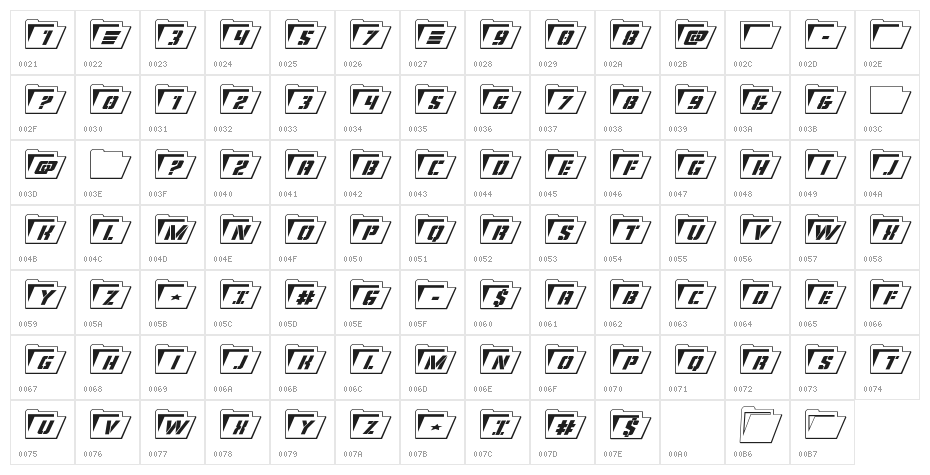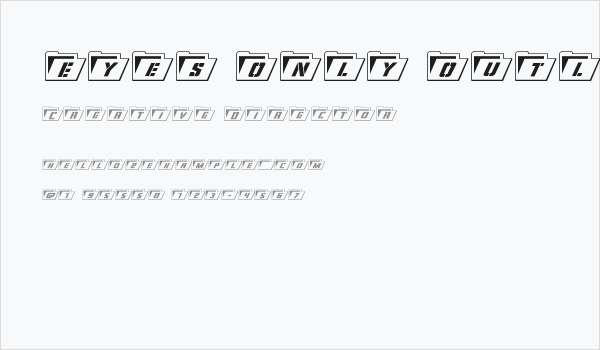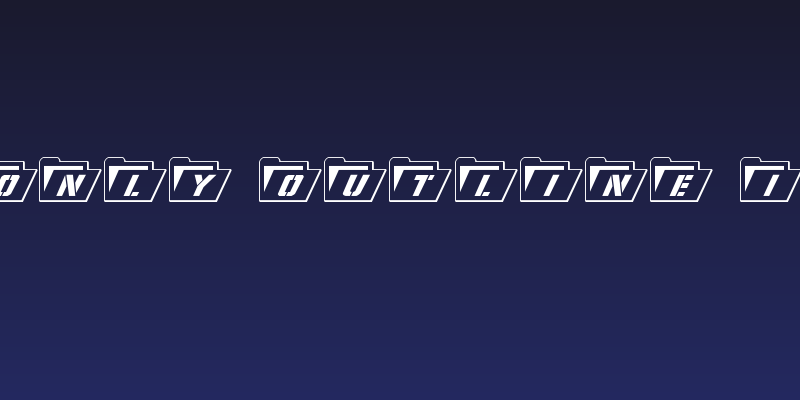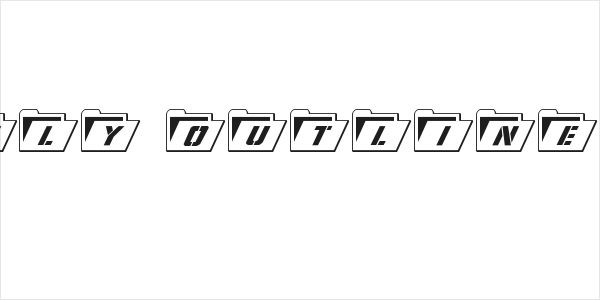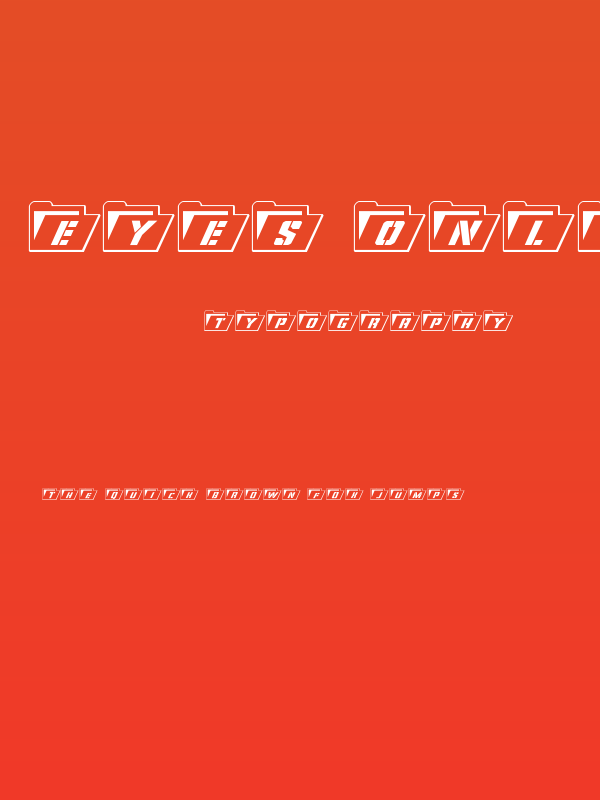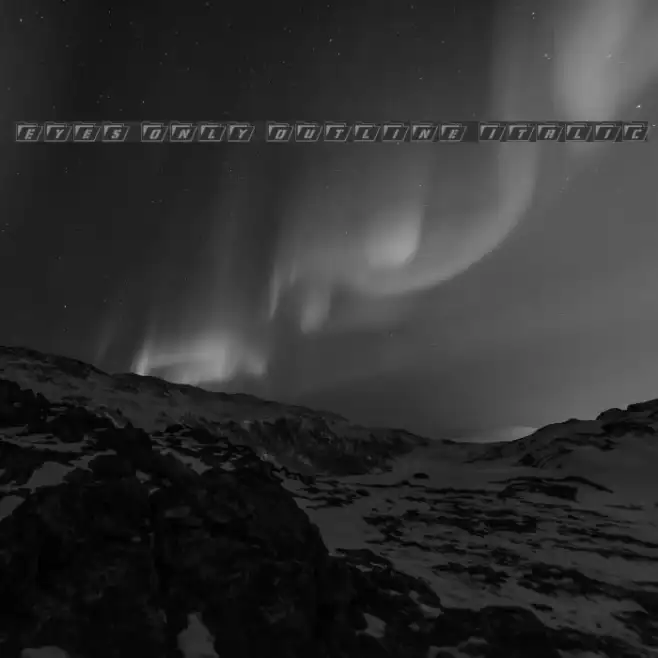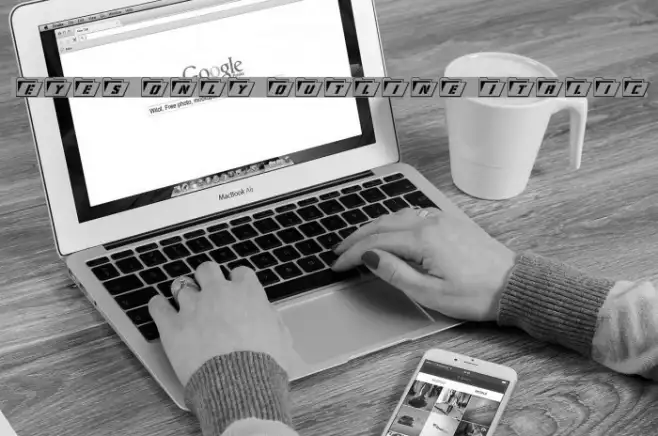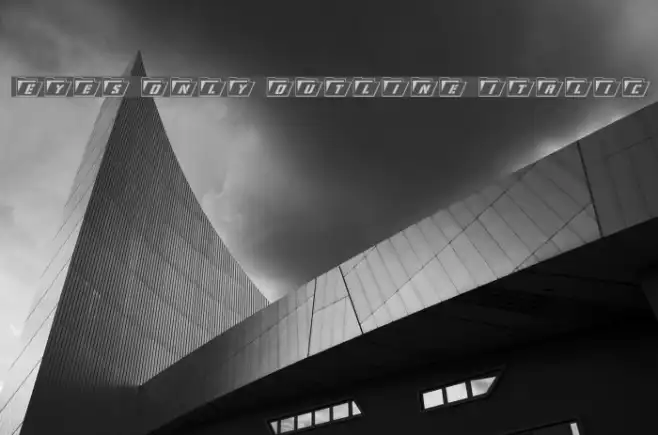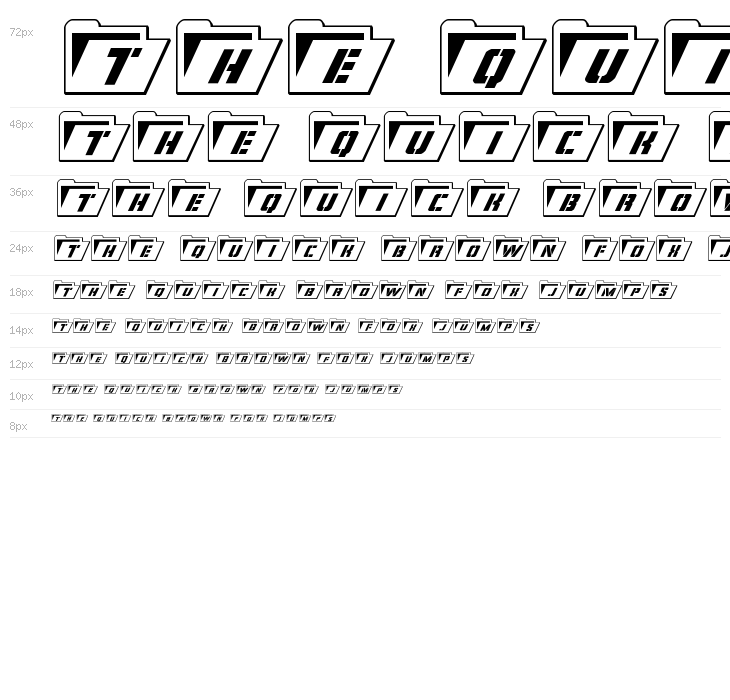
Eyes Only Outline Italic Font
Eyes Only Outline Italic Description
This font features a unique and playful design where each character is enclosed within a folder-like outline, giving it a distinctive and modern appearance. The characters are italicized, adding a dynamic and forward-leaning style. The outlines are bold, creating a strong visual impact, while the interior strokes of the letters are thinner, providing a medium contrast. This combination of bold outlines and italicized letters makes it suitable for creative and eye-catching designs. The font maintains a consistent width and spacing, ensuring readability despite its decorative elements.
| Proposed Projects | Ideal for tech-related branding, digital media projects, or any creative design that requires a modern and playful touch. |